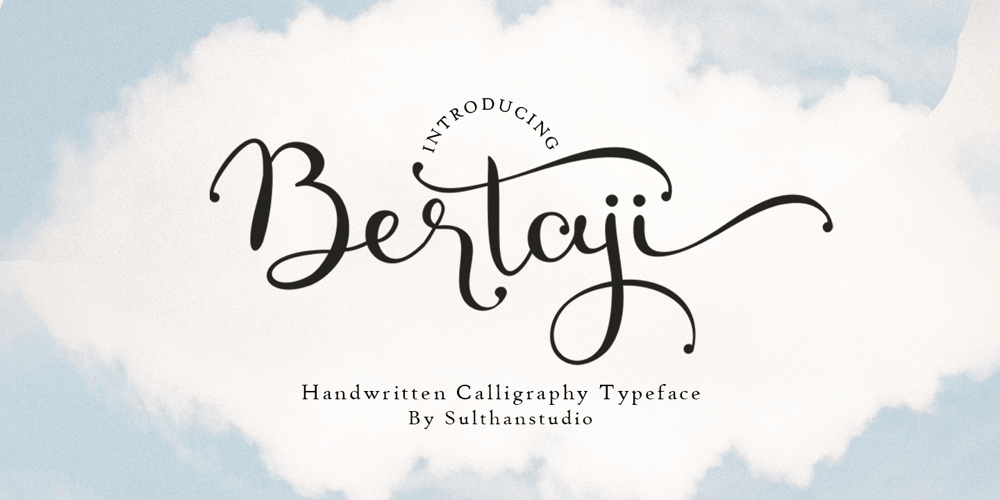
Bertaji Font Family was designed by Nasrullah and published by Sulthan Studio. Bertaji contains 1 styles and family package options. A handwritten font with an eccentric style that is also charming with a soft touch makes this font very, very sweet and adorable.It’s perfect for any type of work you’re working various purposes such as logos, wedding invitations, headings, t-shirts, letterheads, signage, labels, news, posters, badges etc.